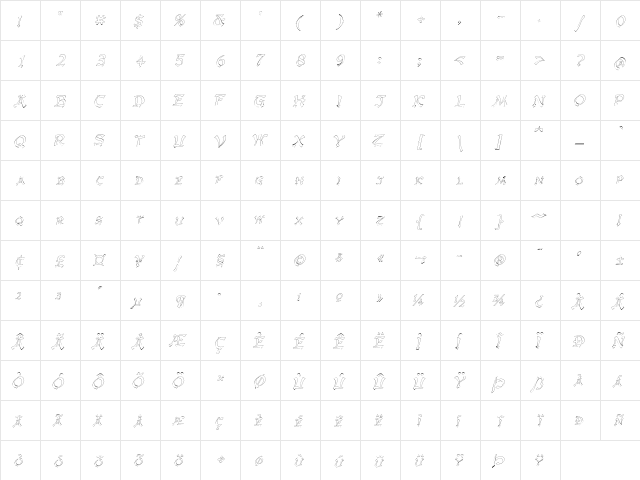
GengisKahnOutline Italic Font Preview
GengisKahnOutline Italic
Design Context for GengisKahnOutline Typeface
GengisKahnOutline is built around its visual character rather than neutral utility — its distinctive forms are designed to make an impression at display sizes. Its italic angle brings a sense of urgency and motion to the letterforms.
Font Pairing: Pair with a clean neutral sans-serif for body copy to let GengisKahnOutline's character lead without overwhelming the composition.
Pro Tip: Use GengisKahnOutline exclusively at display sizes — it was designed to be seen, not read at length. Let a neutral companion handle body copy.